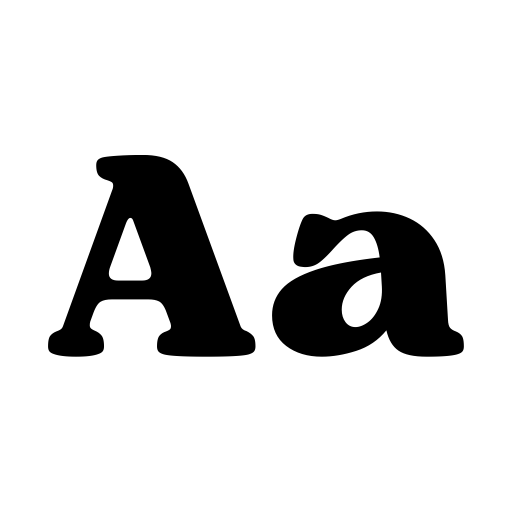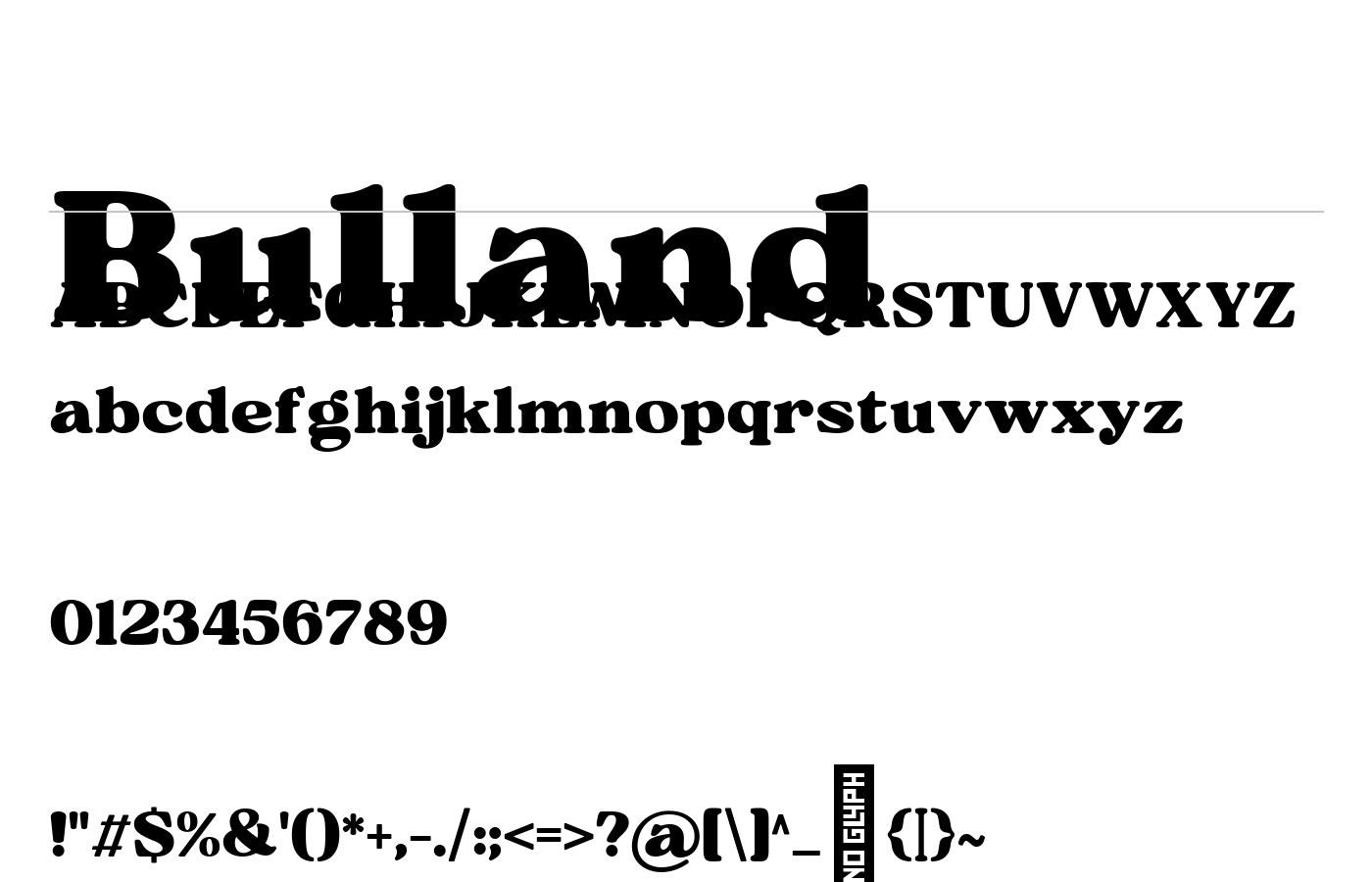
Bulland is a bold slab serif font with strong, blocky letterforms and moderate stroke contrast, offering a vintage yet robust feel. Its thick, bracketed serifs and distinctive curves make it ideal for headlines, logos, and branding projects that want to convey confidence and a classic touch. This font works best in physical and digital designs seeking a striking, memorable presence with a touch of traditional style.
Bulland Font
About Bulland Font